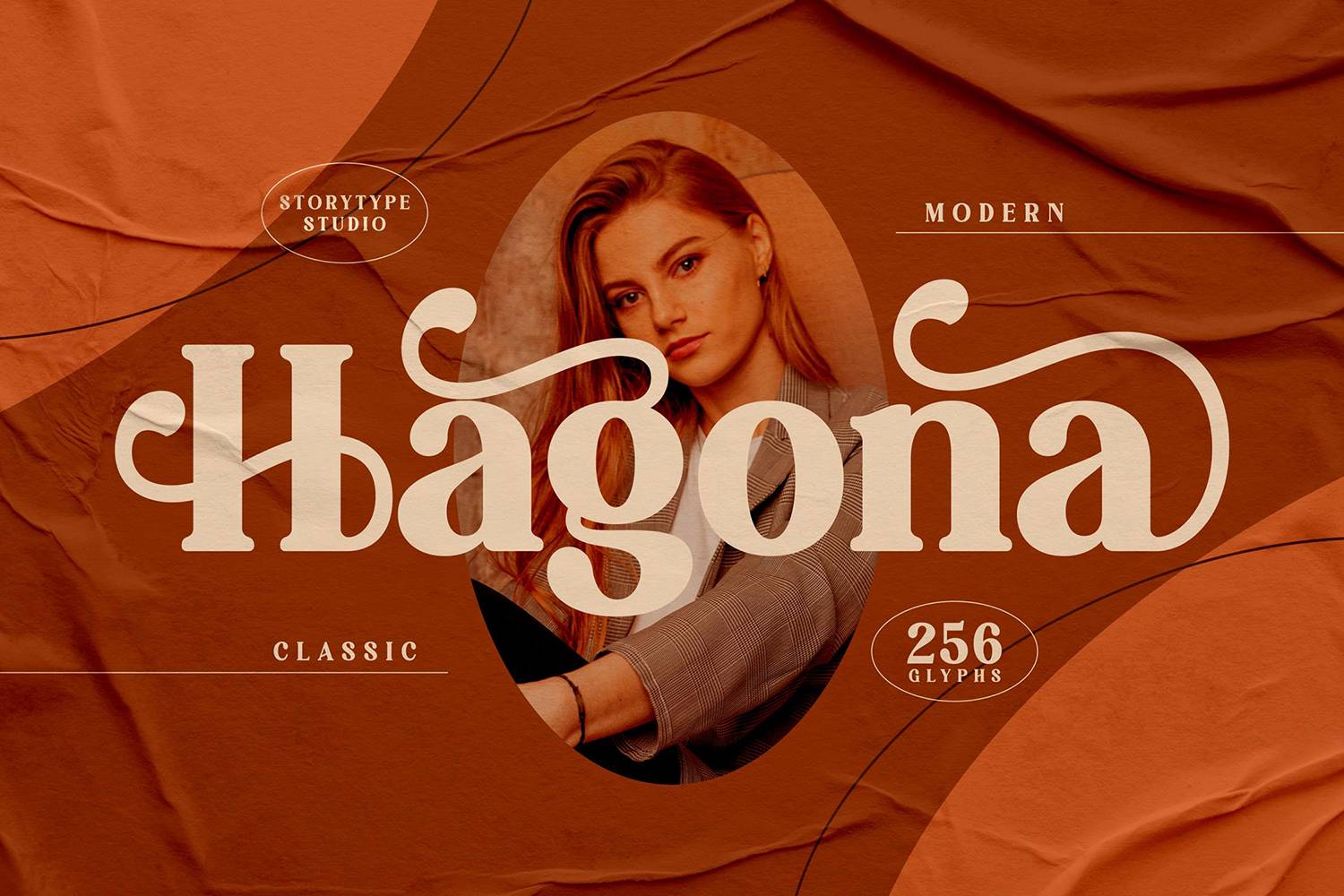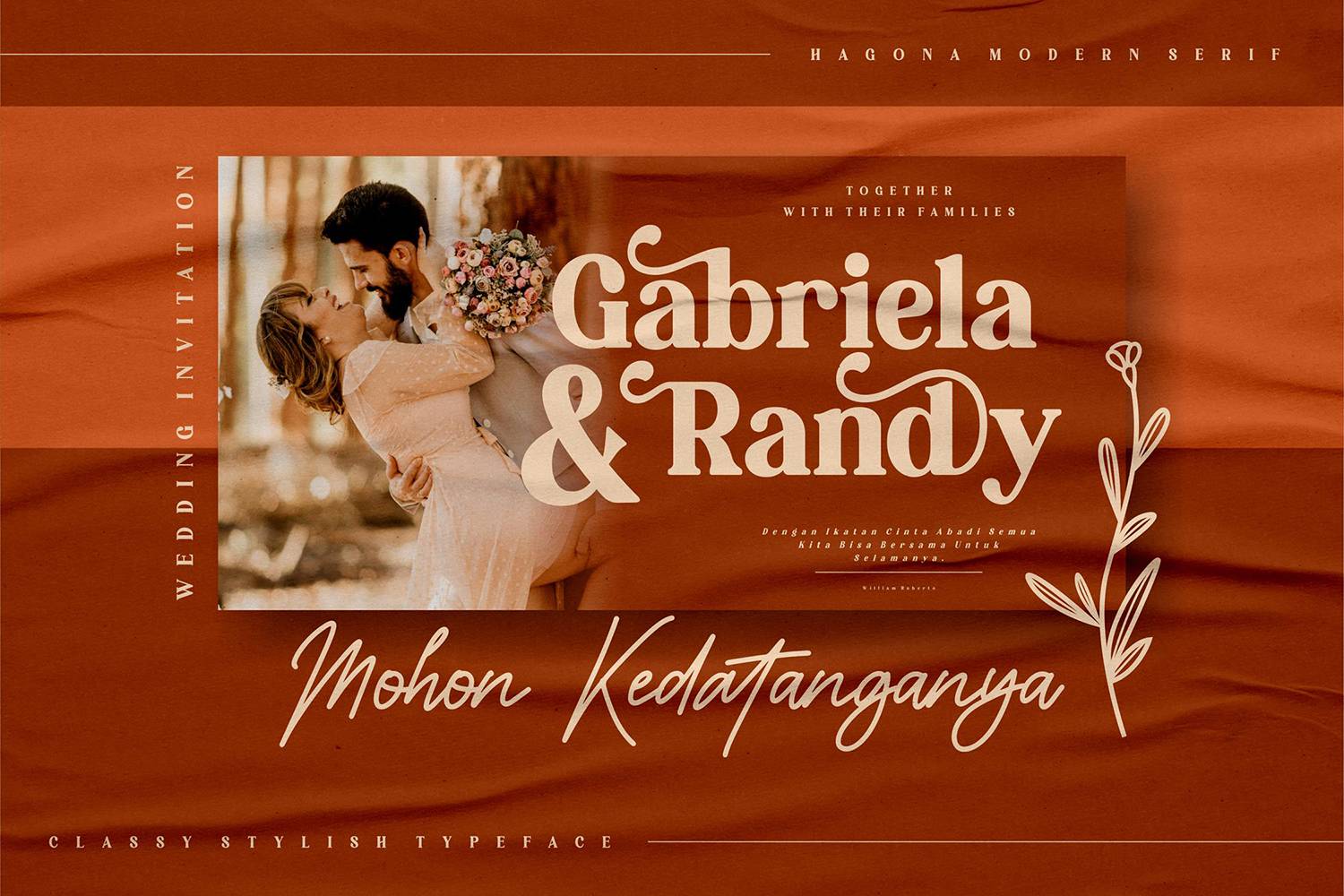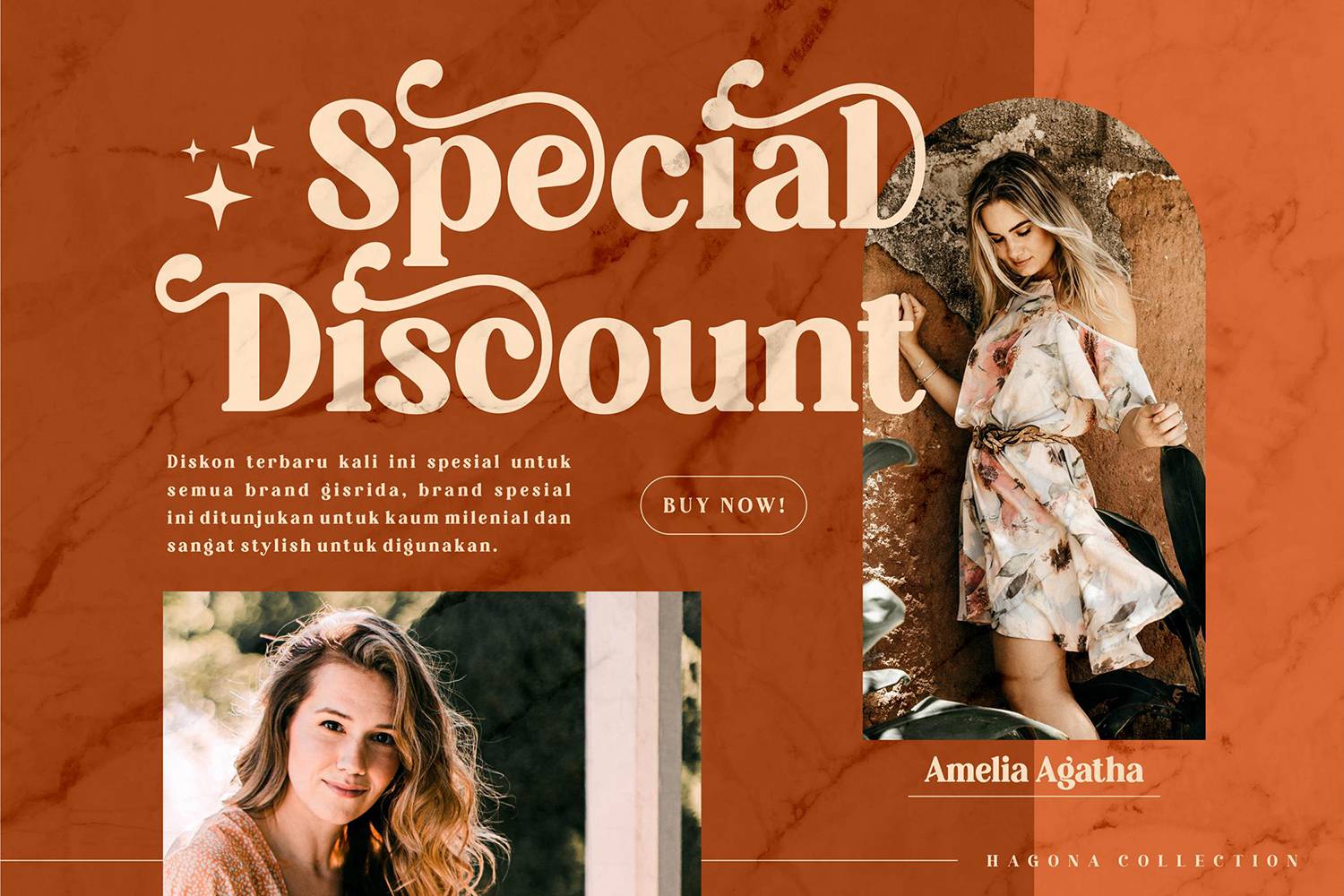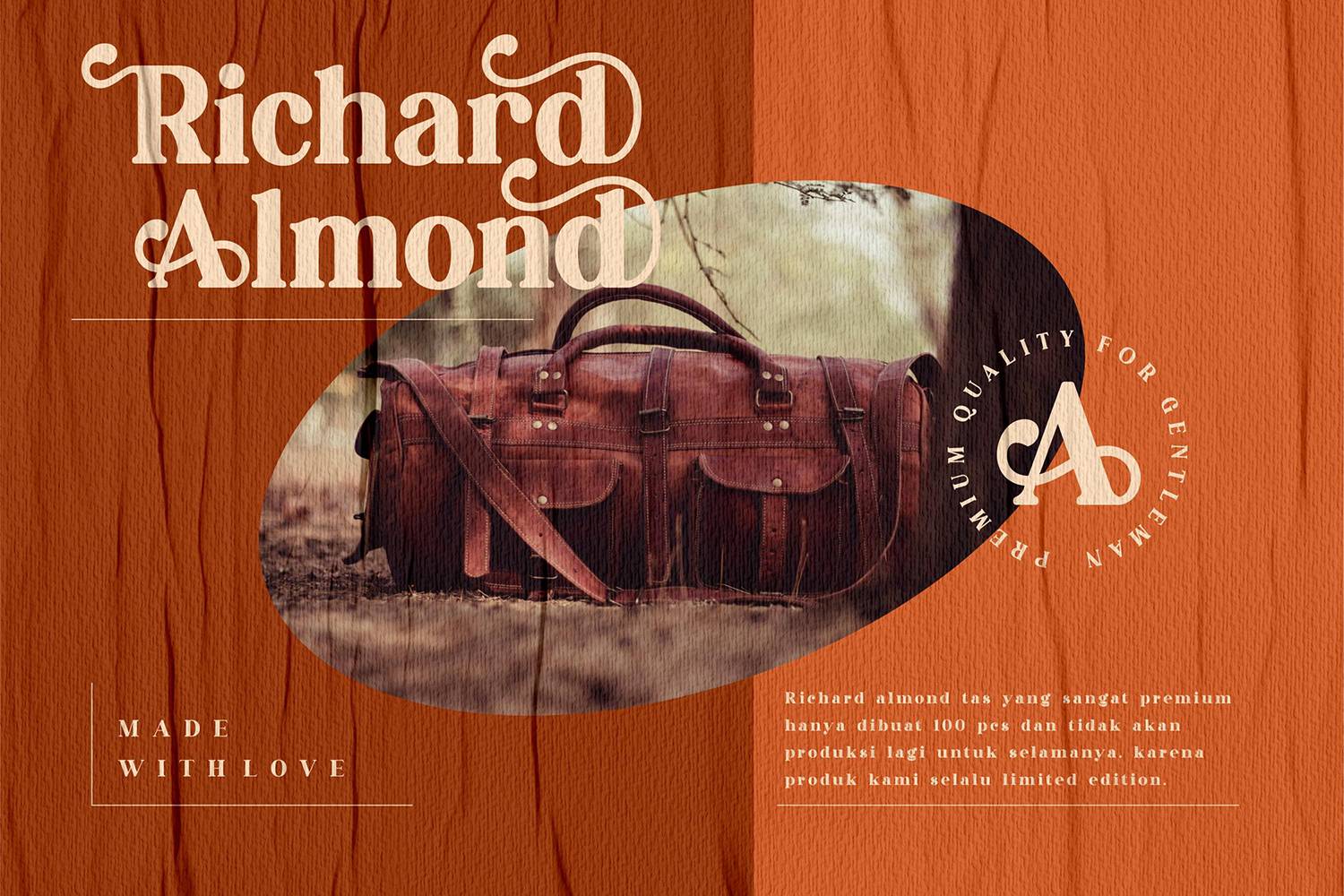
Hagona Classy is a bold serif font with a classic and refined feel, featuring strong contrast between thick and thin strokes and elegant bracketed serifs. Its moderately high x-height and distinctive letterforms, like the curved tail on the Q, give it a sophisticated yet approachable personality, making it ideal for upscale branding, editorial headlines, and stylish packaging. This font stands out where a timeless and classy impression is needed, combining readability with a touch of vintage charm.
Hagona Classy Font